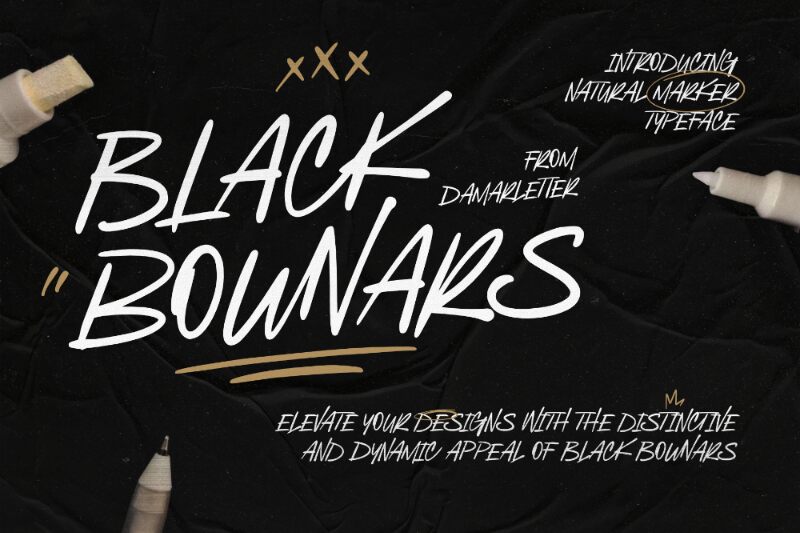
Black Bounars font, designed by Ardian Nuvianto of Damarletter, captures the essence of playful elegance with its handwritten charm. This font exudes a vibrant energy, characterized by bold strokes and fluid lines that dance across the page. Its striking presence makes it perfect for projects that call for a touch of personality and warmth.
The dramatic curves and exaggerated flourishes lend a sense of spontaneity, drawing the eye effortlessly while maintaining legibility. Ideal for branding, invitations, or artistic projects, Black Bounars stands out in both digital and print mediums. Its ability to convey emotion makes it a versatile choice for those looking to make a lasting impression in any design context. Whether used prominently or as an accent, this font adds an inviting flair that resonates with creativity.